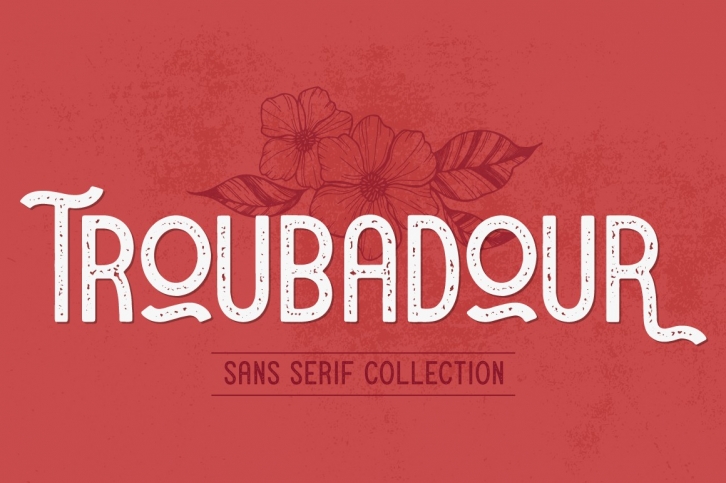
The Troubadour Collection is a beautiful font that was designed by Josh Ownby. It's a great choice for designers and creatives who need such a font. It was released on April 6, 2017 and the file size is 19.26 MB. The Troubadour Collection may give a more youthful, expressive and casual look to your project. It is a very beautiful, refined, elegant, and high-quality font.